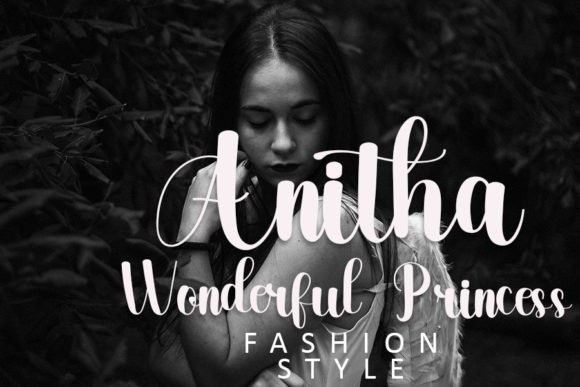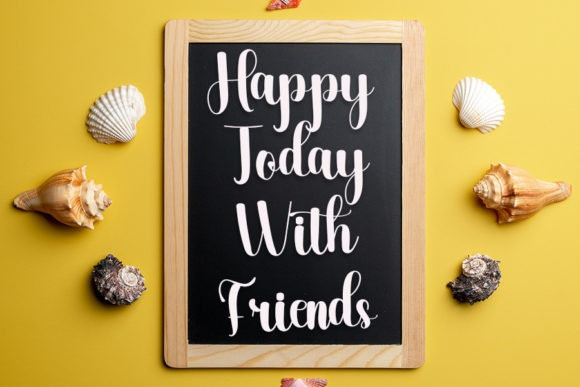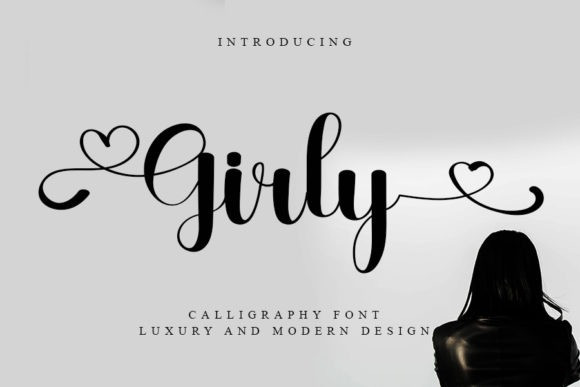
Girly Typeface
Girly Typeface is a highly detailed script font. This delicate script has a wide spectrum of applications ranging from greeting cards to headlines and logos. Girly is PUA encoded which means you can access all glyphs and swashes with ease!